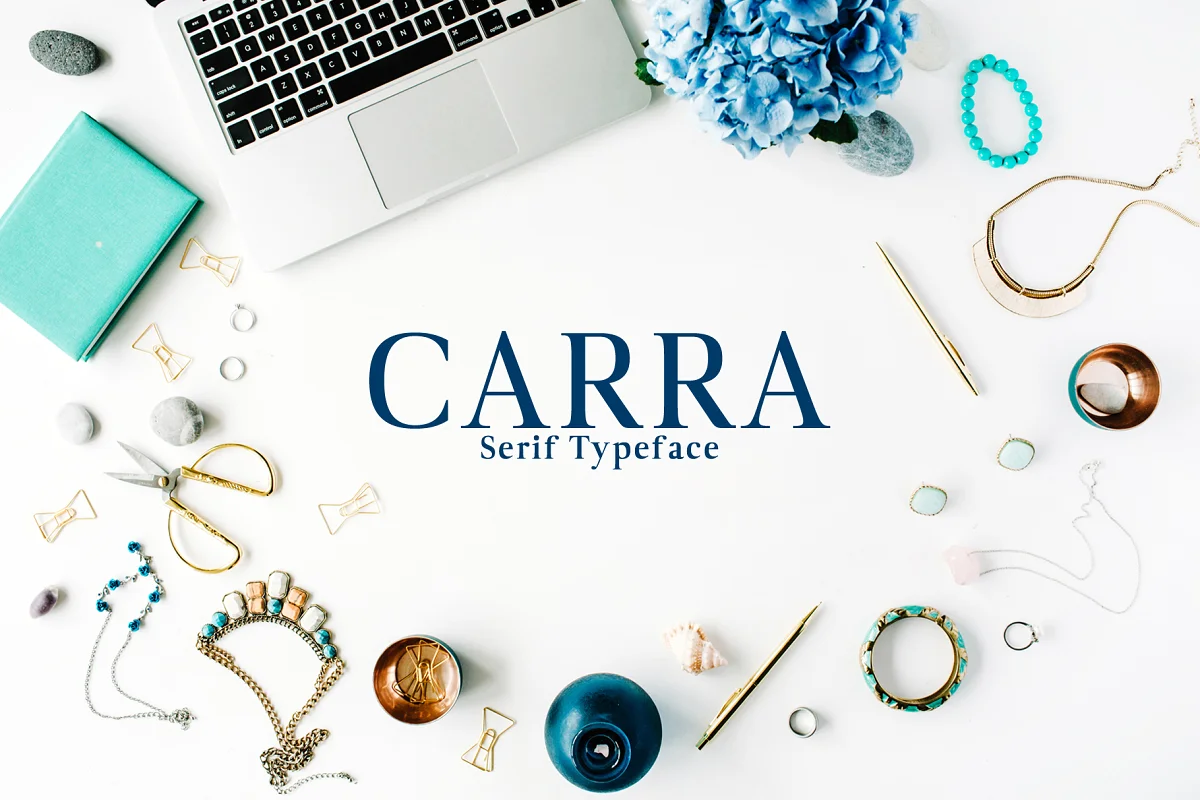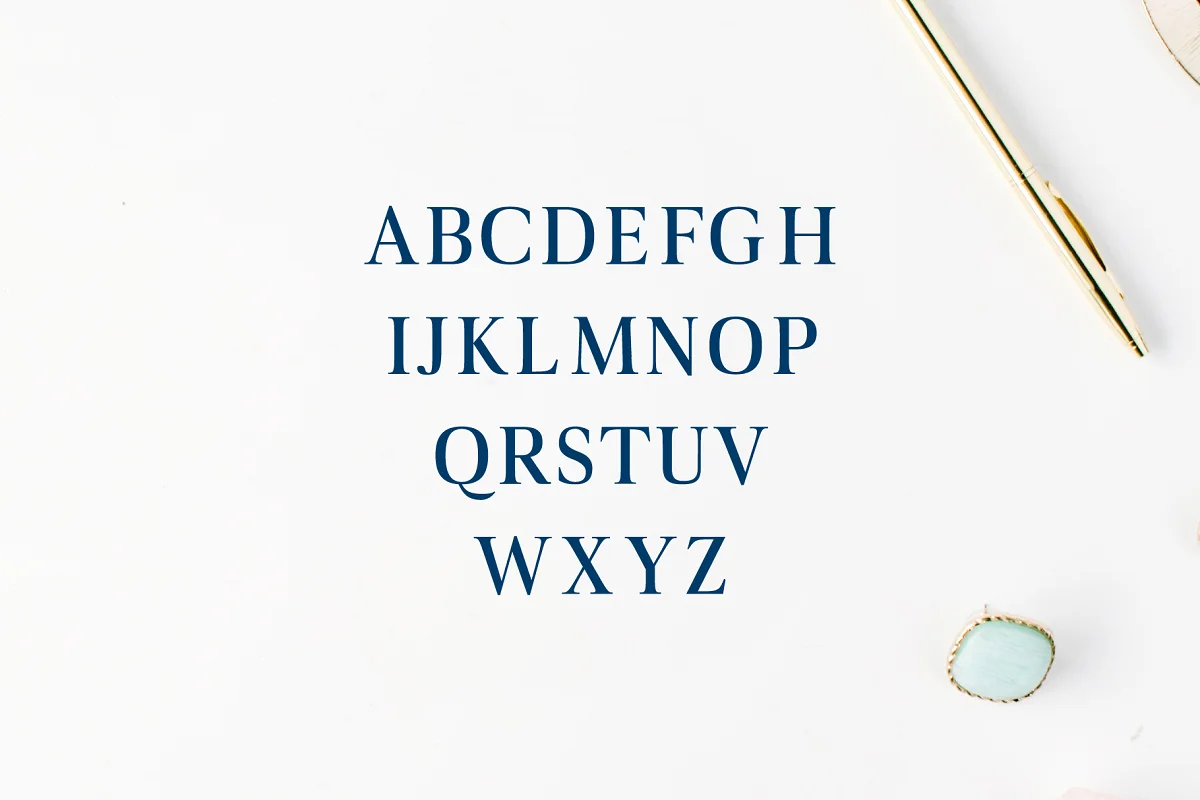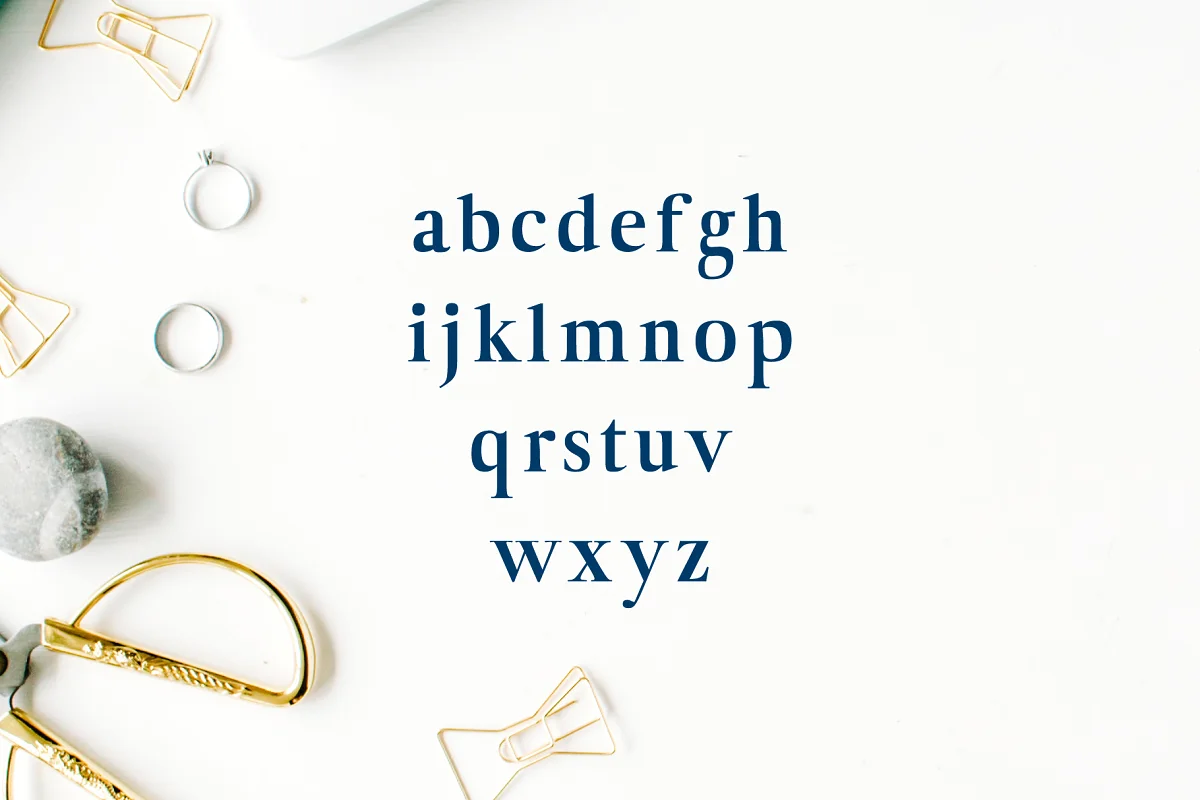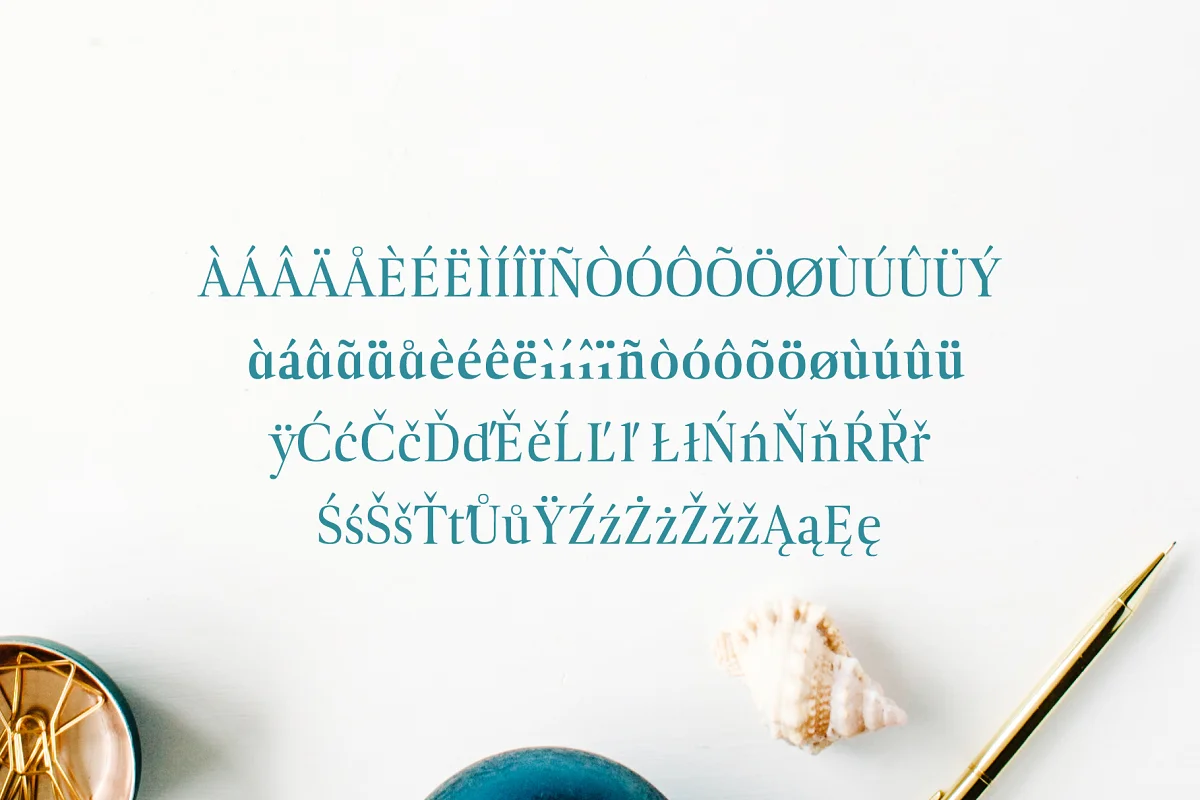
About the Carra Font
Carra Typeface is a minimal clean serif font family, which contains 4 weights, It features a unique and modern serif look and feels. Perfect for gorgeous logos, titles, web layouts, and branding.
It looks gorgeous in all caps with a wide-set spacing if you want to try a classy look, or beautiful on its own in capital and lowercase letters for something completely timeless.
- Font Weight: Regular, Italic (NEW), Semi-Bold, and Bold
- Uppercase Multilingual Letters
- Lowercase Multilingual Letters
- Numbers & Punctuation
- Non-English Characters ( Latin Supplement + Latin Extended-A )